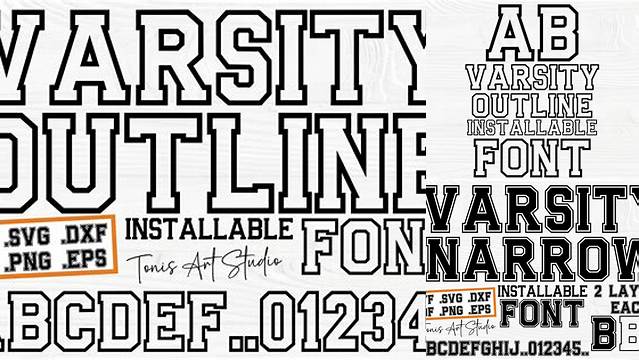
AB College Varsity Font: Free Downloads & Design Tips
Hey there, design enthusiasts and font fanatics! Are you on the hunt for that iconic, sporty, and timeless look that screams college spirit? Well, guys, you've landed in the right place! We're diving deep into the world of the AB College Varsity Font free download, exploring everything from where to snag it for free to how to make your designs pop with its classic charm. This font isn't just a typeface; it's a statement, perfect for everything from sports jerseys to school projects and even cool personal branding. So, let's get ready to unlock the full potential of this awesome font and get your creative juices flowing!
Unlocking the Charm of AB College Varsity Font: A Free Download Guide
Guys, finding the AB College Varsity Font free download can feel like searching for a needle in a haystack if you don't know where to look, but trust me, it's totally worth the effort! This particular font carries such a strong legacy of American college aesthetics, instantly bringing to mind images of athletic fields, team spirit, and academic pride. What makes the AB College Varsity Font so captivating, you ask? It's all in its bold, blocky, and often slightly condensed letterforms that give off a vibe of strength and tradition. It's incredibly versatile, making it a go-to choice for designers, students, and anyone looking to inject a bit of that classic collegiate feel into their work. When you're thinking about a AB College Varsity Font free download, remember that the key is to find reliable sources to ensure you're getting a clean, safe file. Many free font sites offer it, but it’s always a good idea to check user reviews or forum discussions to confirm the quality and authenticity of the download. We'll explore some of the best spots in the following sections, making sure you get exactly what you're looking for without any headaches. So, buckle up, because getting your hands on this gem is going to be super easy once you know the tricks!
Exploring Different Versions: AB College Varsity Font Free Download Options
When you dive into the world of AB College Varsity Font free download options, you might notice that there isn't just one single, definitive "AB College Varsity" font. Instead, you'll encounter a fascinating array of variations and inspired designs, all aiming to capture that iconic collegiate athletic aesthetic. Some versions might be called "Varsity Block," "College Stencil," or simply "Sports Font," but they all share a common thread: the bold, strong, and often slightly slab-serif style that defines the genre. What's cool about these different versions is that they offer subtle nuances. Some might have a more distressed or grunge look, perfect for a vintage sports feel, while others are clean and crisp, ideal for modern applications. You might find versions that include numbers and special characters, which is super handy for creating complete sports team rosters or academic projects. When you're searching for an AB College Varsity Font free download, pay attention to the font family details. Does it come with bold, regular, and italic styles? Does it offer condensed or extended widths? These variations can significantly impact the visual appeal and versatility of your design. Always read the font description carefully on the download site to understand what you're getting. Sometimes, a font labeled as "varsity" might be a direct recreation of a classic, while others are creative interpretations. Exploring these different options allows you to pick the perfect flavor of collegiate spirit for your specific project, ensuring your design stands out with authentic flair.
Designing with Impact: How to Use Your Free AB College Varsity Font Effectively
Okay, you've got your AB College Varsity Font free download installed, and now the fun begins: designing with it! To truly make an impact, it’s not just about slapping the font onto a canvas; it’s about understanding its strengths and using it strategically. The AB College Varsity Font, with its bold, strong, and often uppercase presence, naturally commands attention. This makes it perfect for headlines, titles, and short, impactful statements. Think about sports team names, school event titles, or even brand taglines. Because of its weight and distinct style, it can sometimes be less readable in long blocks of text, so it's generally best reserved for display purposes. When you’re designing, consider the spacing – sometimes a little extra letter-spacing (tracking) can enhance its readability and give it a more open, airy feel, especially for larger sizes. Conversely, for a very tight, classic college block look, you might want to reduce the spacing slightly. Also, don't be afraid to experiment with outlining or adding a stroke to the letters, a common technique that amplifies that athletic jersey aesthetic. This really makes the AB College Varsity Font free download pop off the page or screen. Remember, the goal is to leverage its inherent power and character. Don't let it get lost in a busy background; give it room to breathe and shine. By thinking about hierarchy and purpose, you can transform a simple text block into a compelling design element that instantly communicates energy and spirit.
Crafting Sports Logos: AB College Varsity Font in Action
Guys, if there's one area where the AB College Varsity Font free download absolutely shines, it's in crafting sports logos! This font is practically synonymous with athletic teams, schools, and competitive spirit. Its robust, blocky structure lends itself perfectly to creating logos that convey strength, tradition, and a fierce competitive edge. When you're designing a sports logo using the AB College Varsity Font, think about the team's identity. Are they aggressive and bold? Or more classic and traditional? The font can adapt. You can use it straight up for a clean, strong look, or you can get creative by incorporating common logo elements like arches, swooshes, or banners around the text. Often, sports logos benefit from a slight tilt or perspective shift to imply movement and dynamism. Another popular technique is to add an outline or a shadow effect, which gives the letters a three-dimensional, embroidered feel – perfect for mimicking actual sports apparel. Remember, the AB College Varsity Font free download is a fantastic starting point, but don't be afraid to customize it. You can modify individual letters slightly to create unique ligatures or flourishes, ensuring your team's logo is truly one-of-a-kind. Pairing it with a strong graphic element, like an animal mascot or a shield, will create a cohesive and powerful brand image that any team would be proud to display. It's an essential tool for any designer looking to capture that winning athletic vibe.
School Spirit Unleashed: Applying AB College Varsity Font to School Projects
For all you students and educators out there, your AB College Varsity Font free download is about to become your secret weapon for school projects! This font is absolutely perfect for anything that needs to evoke a sense of academic pride, team spirit, or institutional identity. Imagine designing a yearbook cover, creating posters for a school fundraiser, or even crafting banners for a pep rally – the AB College Varsity Font instantly elevates these materials from ordinary to awesome. Its bold, legible nature makes it ideal for titles and headings, ensuring that your key messages stand out. For school presentations, using this font for slide titles can add a professional yet spirited touch, making your work more engaging for your classmates and teachers. You can also use it for creating custom t-shirts for school clubs, designing diplomas or certificates, or even for school newspaper headlines. The beauty of the AB College Varsity Font free download is its universal appeal in an educational context. It's recognizable, authoritative, and just plain cool. When applying it, consider using school colors to really tie everything together. A strong, contrasting color for the font against a solid background or a subtle texture can make your text pop. So, next time you're working on a project that needs that extra bit of school pride, remember this versatile font is your go-to for unleashing true school spirit!
Let’s dive a bit deeper, folks, into something fascinating: the psychology behind why sports fonts, especially the AB College Varsity Font free download, connect so powerfully with audiences. It's not just about aesthetics; it's about what these fonts communicate on a subconscious level. The bold, often uppercase, and robust nature of sports fonts inherently projects attributes like strength, determination, teamwork, and achievement. When people see text rendered in a varsity style, their brains quickly associate it with positive qualities like athletic prowess, academic excellence, tradition, and a winning spirit. This triggers an emotional response – perhaps nostalgia for their own school days, excitement for competition, or admiration for dedication. For brands, this translates into building an image that is seen as reliable, energetic, and committed. Using a font like the AB College Varsity Font can tap into these pre-existing positive associations, creating an instant connection with the target audience. It signals a certain ethos – one of hard work, community, and striving for excellence. Furthermore, its excellent legibility ensures that the message is clear and unambiguous, reinforcing the perception of straightforwardness and confidence. The availability of the AB College Varsity Font free download means this psychological leverage is accessible to everyone, empowering designers to craft messages that not only look good but also feel right, fostering a deeper, more resonant connection with viewers. It’s a subtle but incredibly effective tool for emotional engagement.
Creating Engaging Social Media Graphics with AB College Varsity Font